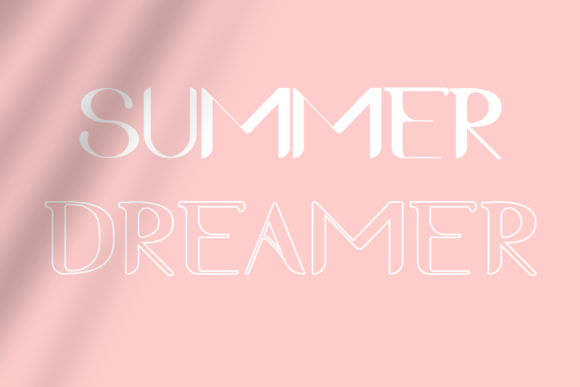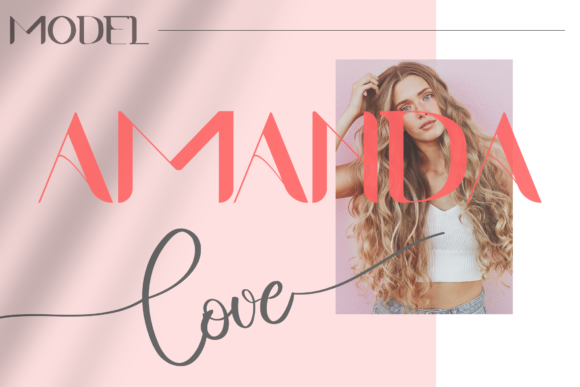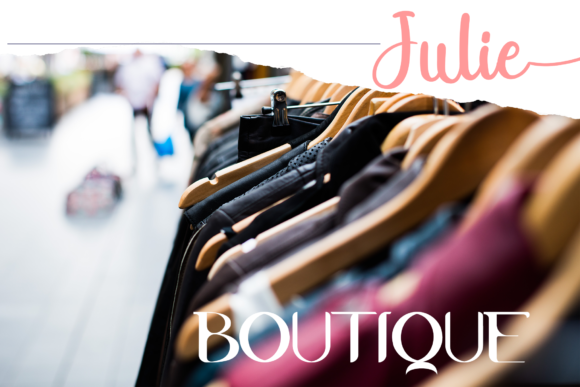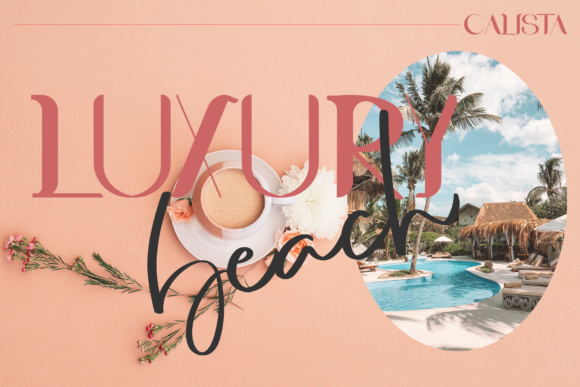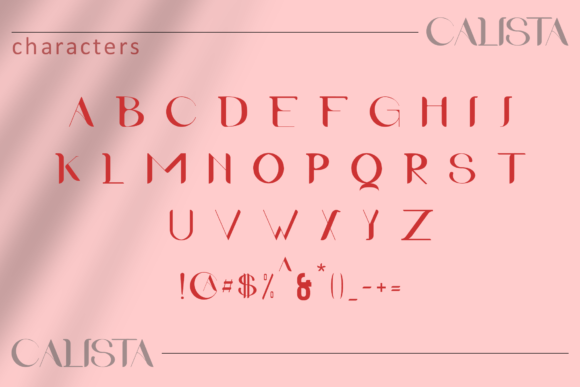
Discover the Trendy and Versatile Calista Font
Are you on the hunt for a font that can elevate your designs and add a touch of sophistication? Look no further than the Calista font. This trendy and cool serif font is a game-changer for designers and crafters alike, offering a wide range of possibilities for creative expression. In this article, we’ll dive into the world of Calista font, exploring its features, benefits, and uses.
What is Calista Font?
Calista is a modern serif font that boasts a unique and stylish aesthetic. Its sleek lines, elegant curves, and refined details make it an excellent choice for a variety of design projects. Whether you’re working on a logo, brochure, website, or social media graphics, Calista font is sure to make a statement.
Key Features of Calista Font
- Trendy and Cool Design: Calista font features a trendy and cool design that will add a touch of sophistication to your creations.
- Serif Style: As a serif font, Calista features small lines or flourishes at the ends of its strokes, giving it a classic and elegant look.
- Versatile: Calista font is incredibly versatile, making it suitable for a wide range of design projects, from logos and branding to websites and social media graphics.
- Easy to Read: Despite its elegant design, Calista font is easy to read, even at small sizes.
Benefits of Using Calista Font
So, why should you choose Calista font for your next design project? Here are just a few benefits of using this amazing font:
- Elegance and Sophistication: Calista font adds a touch of elegance and sophistication to any design project.
- Improved Readability: With its clear and easy-to-read design, Calista font ensures that your message gets across to your audience.
- Flexibility: Calista font can be used for a wide range of design projects, from print materials to digital platforms.
- Unique Style: With Calista font, you can add a unique touch to your designs and stand out from the crowd.
Uses of Calista Font
So, what can you use Calista font for? The possibilities are endless! Here are a few ideas to get you started:
- Logo Design: Use Calista font to create a stunning logo that showcases your brand’s personality and style.
- Branding and Identity: Calista font is perfect for creating business cards, letterheads, and other marketing materials.
- Web Design: Add a touch of elegance to your website with Calista font, perfect for headings, titles, and other design elements.
- Social Media Graphics: Use Calista font to create eye-catching social media graphics that grab attention and drive engagement.
Tips for Using Calista Font
To get the most out of Calista font, here are a few tips to keep in mind:
- Experiment with Sizes: Calista font looks great at a variety of sizes, so don’t be afraid to experiment and find the perfect size for your design.
- Pair with Other Fonts: Calista font pairs well with other fonts, so try combining it with a sans-serif font for added contrast.
- Use it for Headings: Calista font is perfect for headings and titles, so use it to add a touch of elegance to your design.
| Font Name | Calista Font |
| Author | By Anggun.studio |
In conclusion, Calista font is a trendy and cool serif font that is sure to elevate your designs and add a touch of sophistication. With its elegant design, versatility, and ease of use, Calista font is a must-have for designers and crafters alike. Whether you’re working on a logo, website, or social media graphics, Calista font is the perfect choice. So why wait? Download Calista font today and take your designs to the next level!